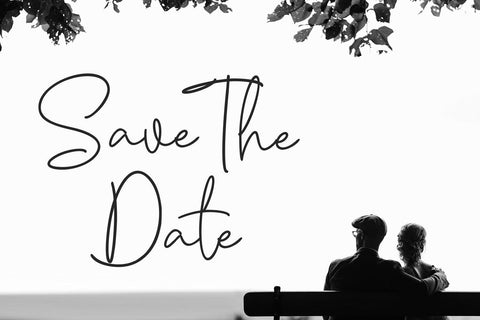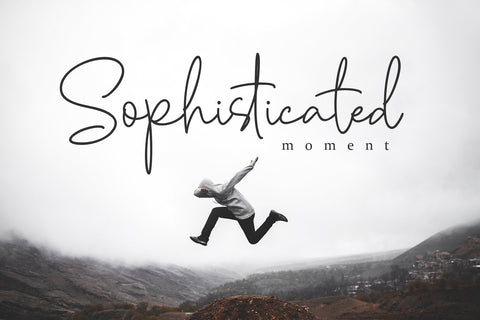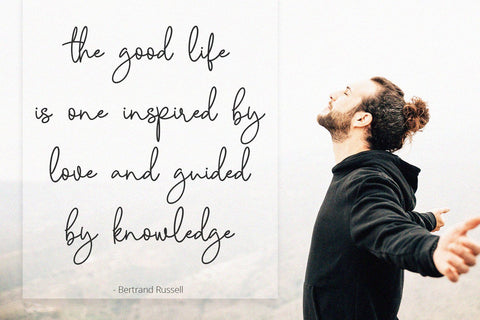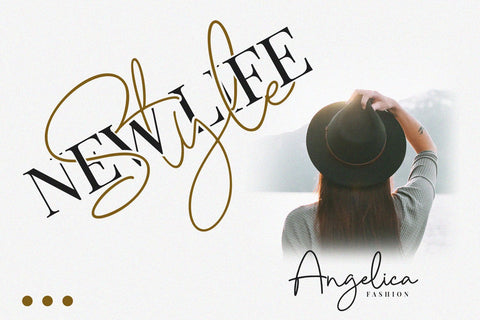
Aesthetic - Monoline Calligraphy Font
Aesthetic is a stunning monoline calligraphyfont with authentic and casual feels. It will be perfectly used for Branding, Logo Design, Lettering, Logotype, Clothing, Poster, magazine, packaging, posters, shopping bags, t-shirts, book covers, photography, special events and other design project.